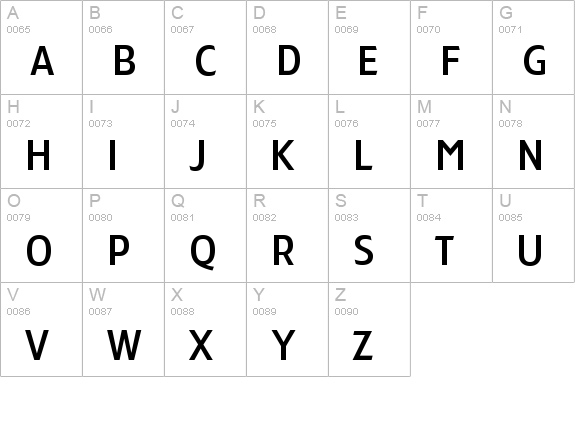
TFForever-Medium is a balanced, medium-weight variant in the TFForever typeface family \xE2\x80\x94 well suited to sub-headlines, navigation, and balanced editorial work.
Introducing TFForever-Medium font, a timeless and versatile typeface that will capture your imagination and add a touch of elegance to your designs. With its clean lines and balanced proportions, TFForever-Medium is perfect for various projects, from branding and packaging to editorial design and signage. This font exudes an air of sophistication and refinement, making it ideal for both professional and personal endeavors. Whether you're designing a logo for a high-end fashion brand or creating eye-catching headlines for a magazine spread, TFForever-Medium will effortlessly elevate your work to new heights. What sets TFForever-Medium font apart is not just its impeccable design, but also its accessibility. We believe that great design should be available to everyone, which is why we are thrilled to offer this font for free download at FontsMarket.com. Now, you can enjoy the beauty and versatility of TFForever-Medium without any barriers. Unleash your creativity with this remarkable font and let it bring your ideas to life with its timeless appeal. Whether you're a professional designer or a DIY enthusiast, TFForever-Medium font will be your faithful companion, adding a touch of class and sophistication to your every project. Download TFForever-Medium font for free today at FontsMarket.com and embark on a design journey that will leave a lasting impression. Embrace the charm of this font and let it become an integral part of your creative arsenal. The possibilities are endless with TFForever-Medium font, so start exploring and see where your imagination takes you.